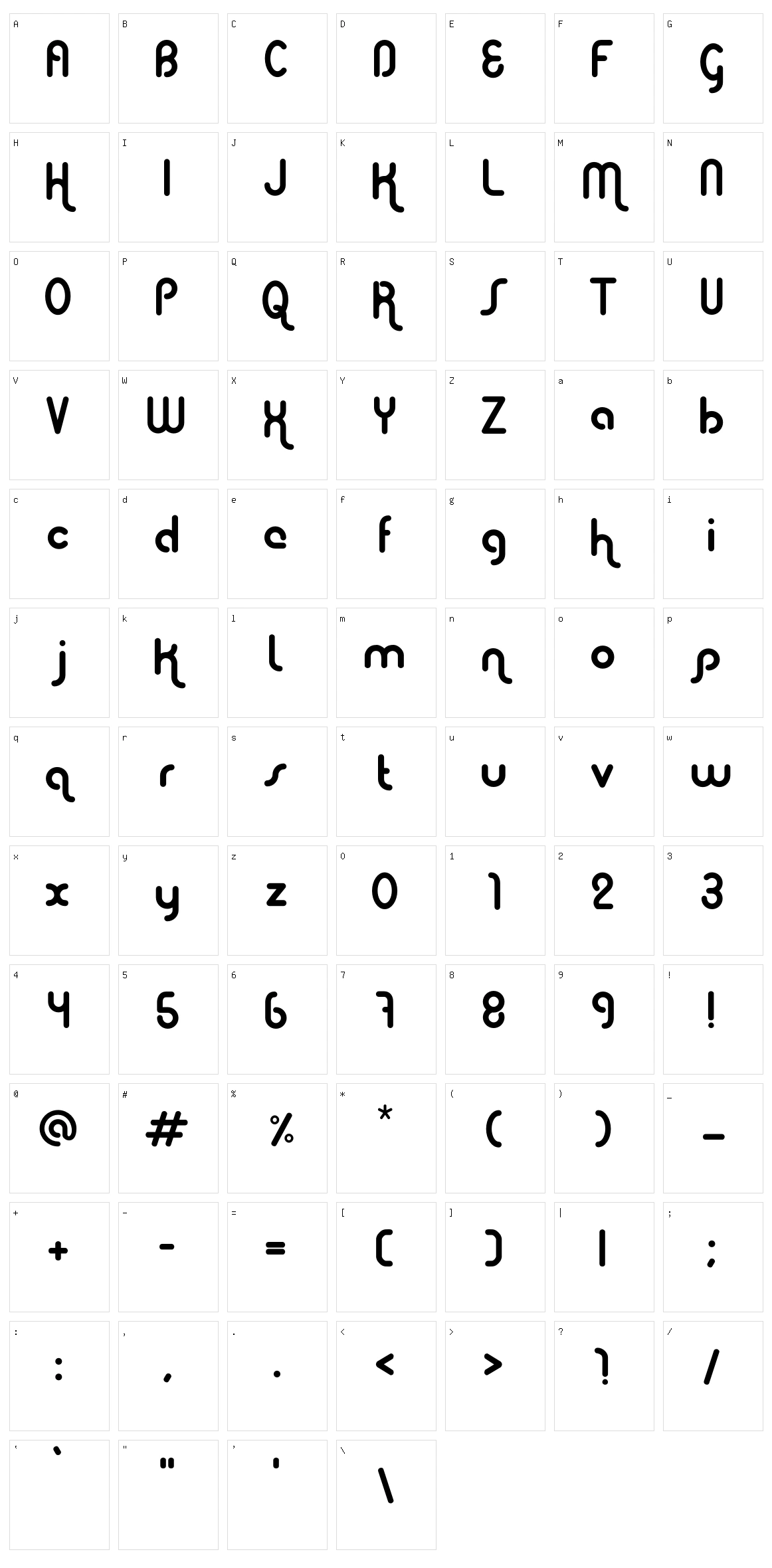
The free font Elephont is carefully designed by Lene Arensdorff, showcasing a thoughtful balance of creativity and usability and falls under the Groovy font style. When you download the ZIP file, it contains only 25.89 KB of font files, making it lightweight and quick to download. Please review the license details below to understand permitted usage and distribution rights. If license information is not available, we recommend using this font for personal projects only or contacting the author directly for commercial usage permissions.